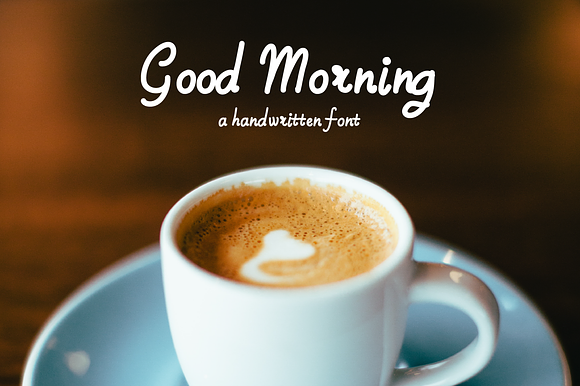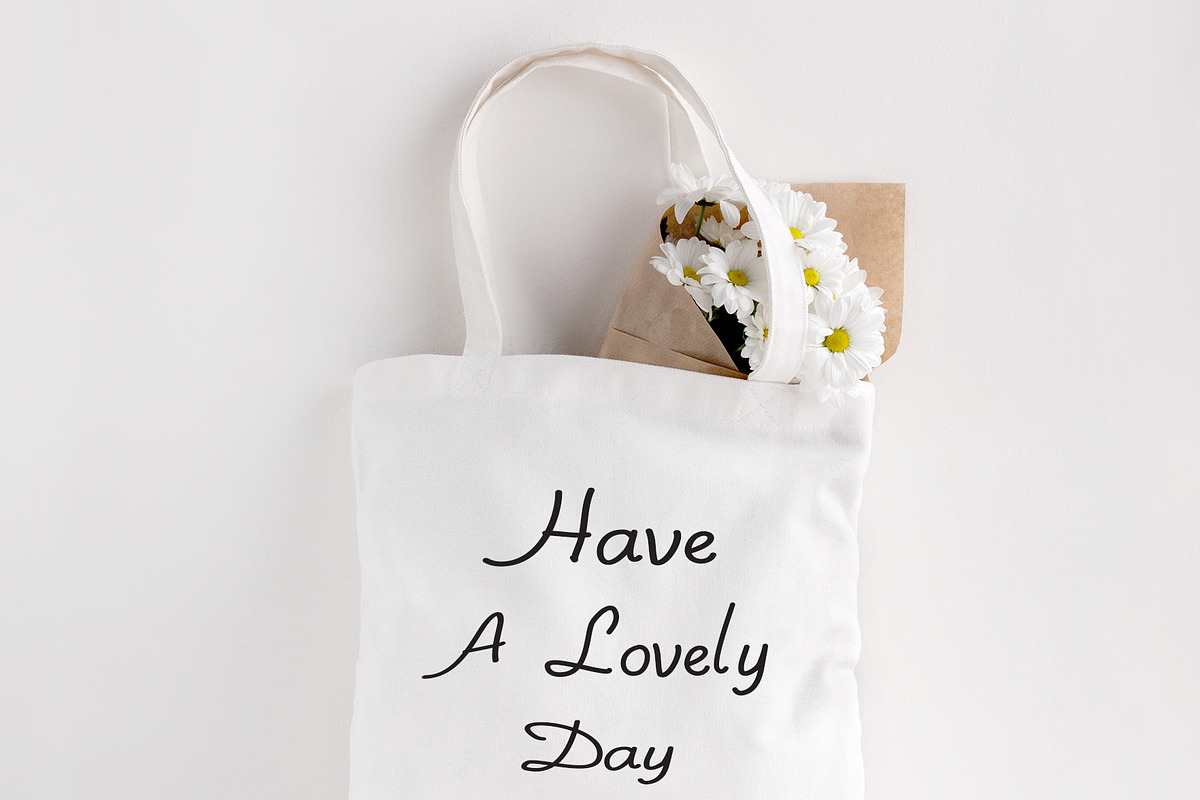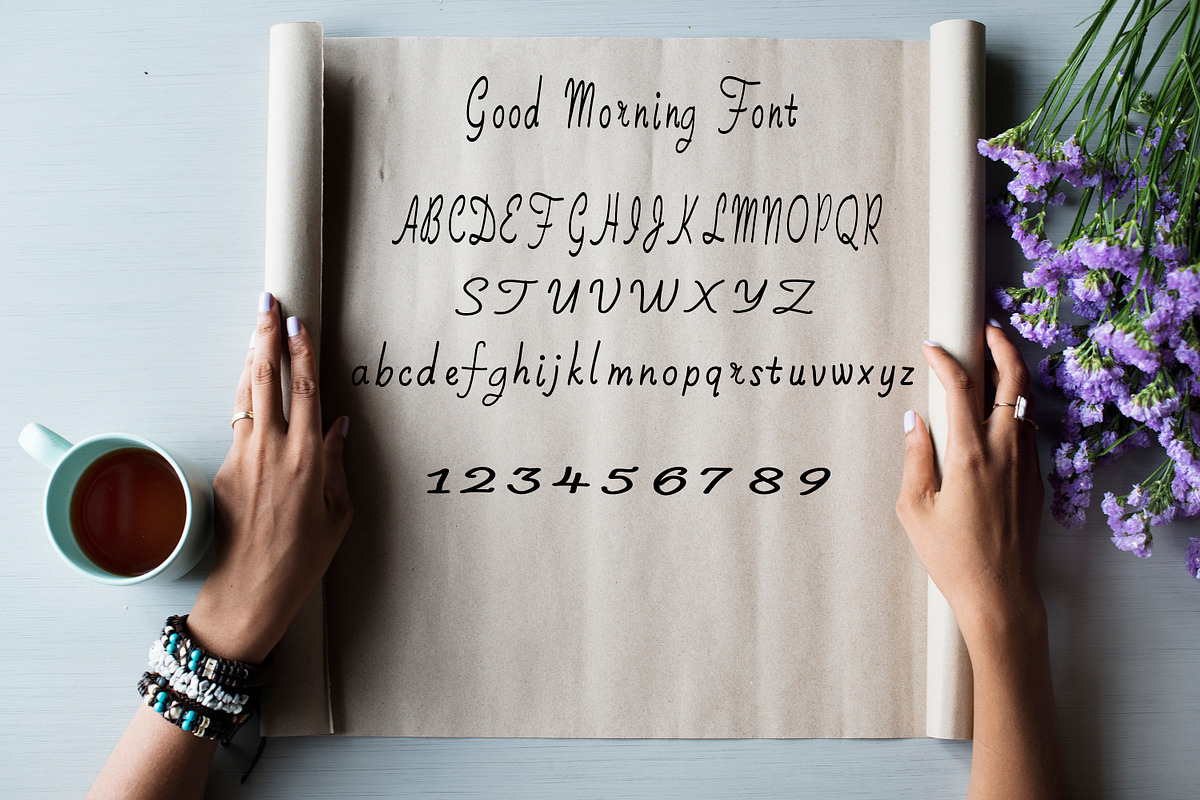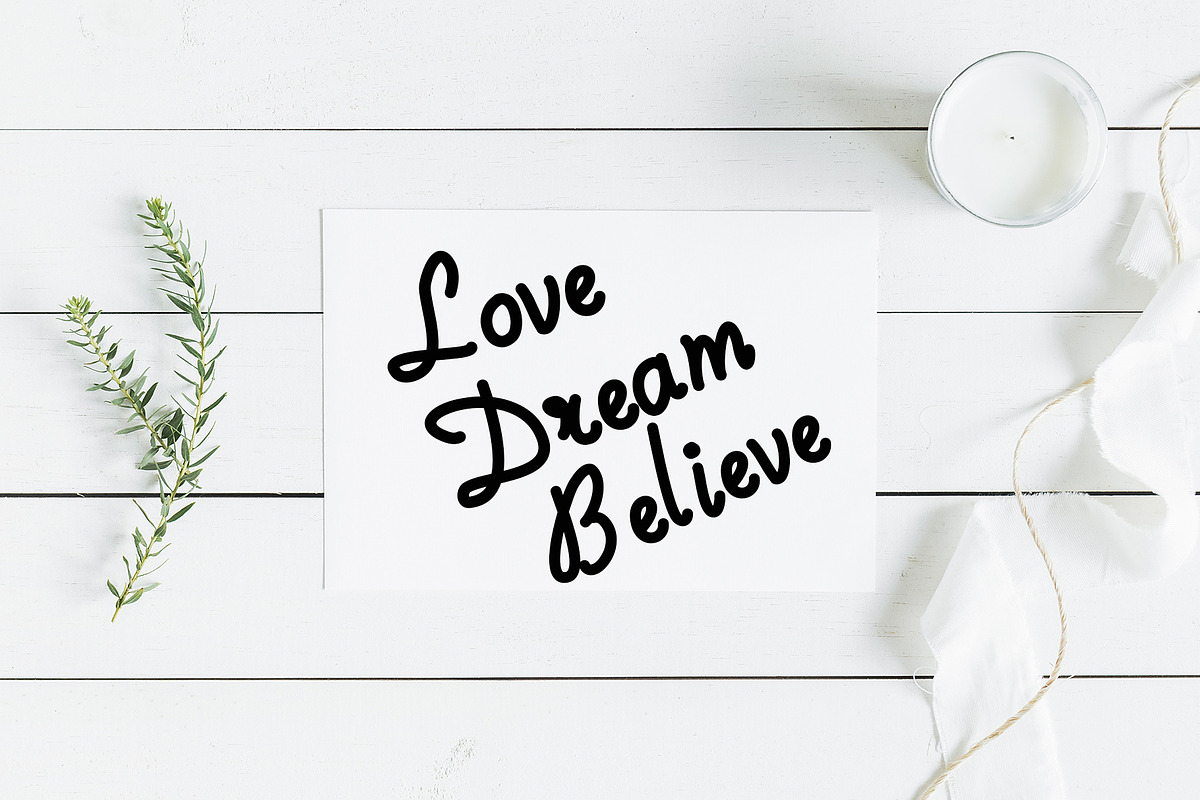
Good Morning Handwritten Font
Good Morning is a casual handwritten font. Includes a full set of upper and lower case letters, numerals, and punctuation
Good Morning Handwritten Font by Hudson Lark Studio fits naturally into Branding, posters, packaging, typography.